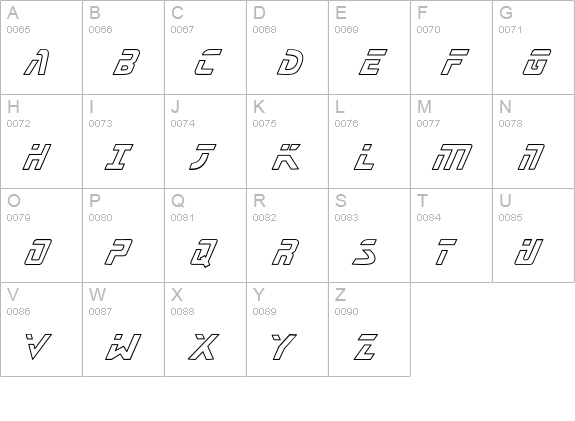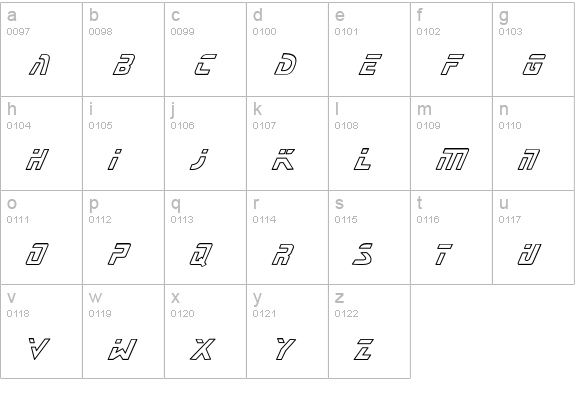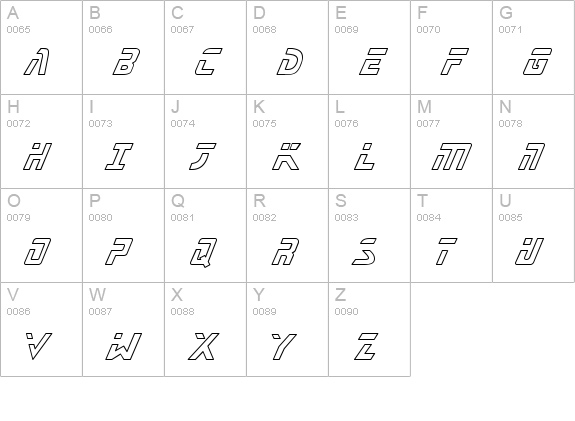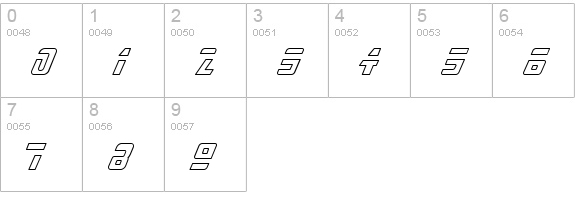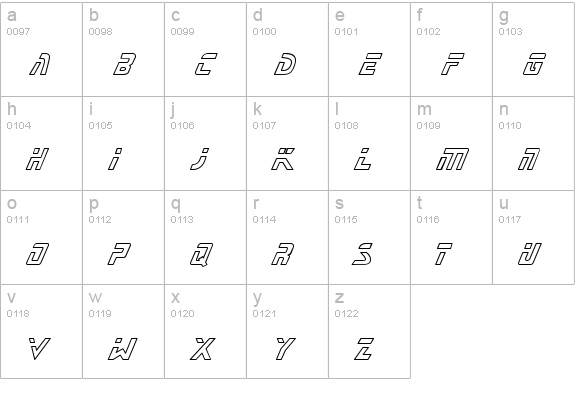
CK Galaxy Font Details
Introducing CK Galaxy font, a sleek and modern typeface that is sure to make your designs shine like the stars in the galaxy. This versatile font features clean lines and a futuristic aesthetic, perfect for a wide range of projects from branding to digital art. With its unique character shapes and elegant typography, CK Galaxy font will add a touch of sophistication to any design. The best part? CK Galaxy font is completely free to download at FontsMarket.com. That's right, you can elevate your projects with this stunning font without breaking the bank. So why wait? Download CK Galaxy font today and let your creativity soar to new heights.